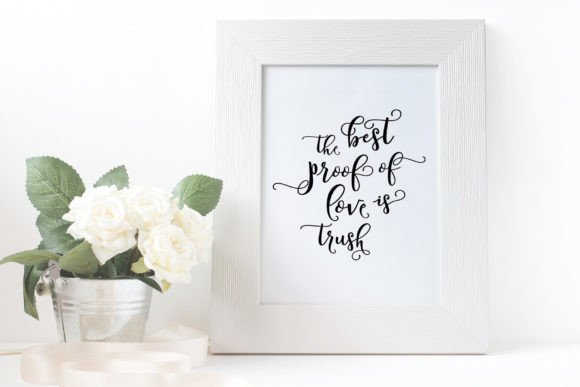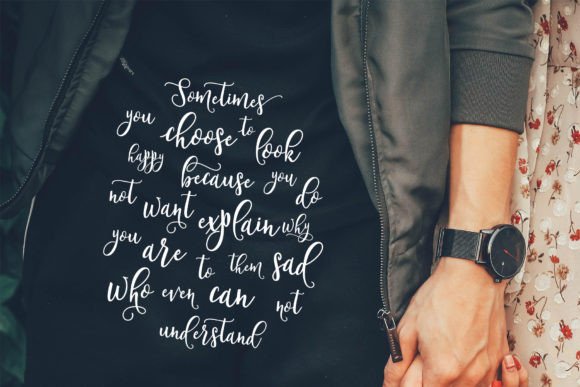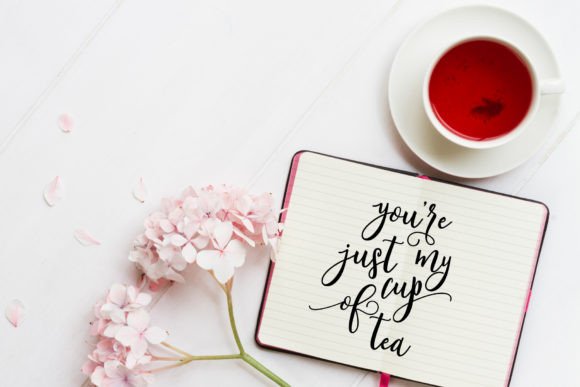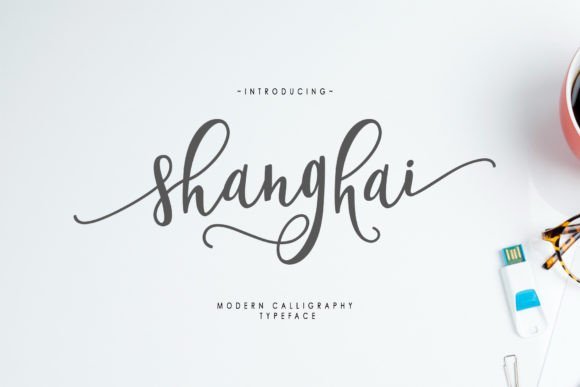
Introduction to Shanghai Script Font
If you are looking to add a touch of elegance to your current project do not miss Shanghai Script.
Shanghai is beautiful and furnished with gorgeous grounds and fine lines that are perfect for many purposes Beautiful, modern and made by hand, this magnificent collection is sure to give your typeface toolbox a needed update.